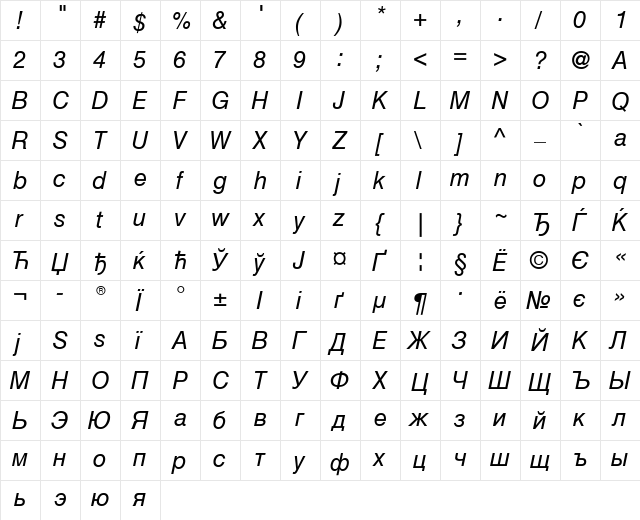
HelveticaCyr Upright Italic Font Preview
HelveticaCyr Upright Italic
HelveticaCyr Upright Italic Font Details
Design Context for HelveticaCyr Upright Typeface
HelveticaCyr Upright takes a measured approach to typography — its balanced proportions and neutral character make it a reliable workhorse for both digital and print work. The slanted form adds forward momentum and visual energy.